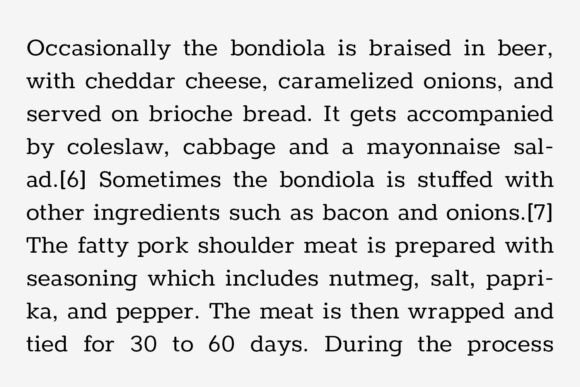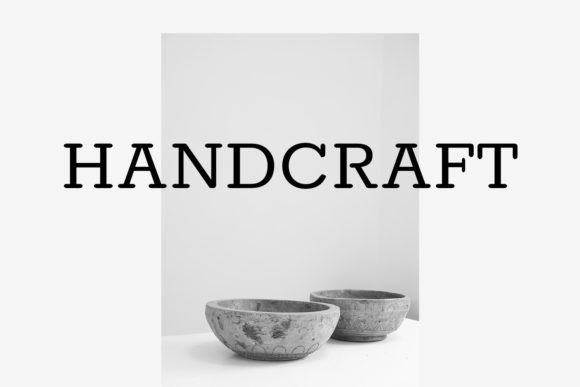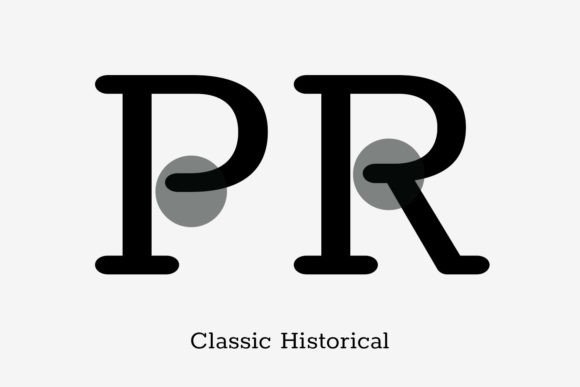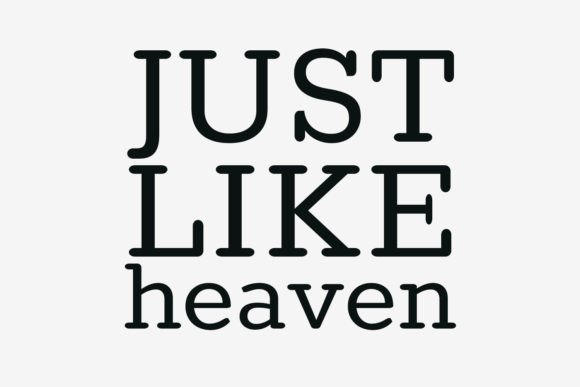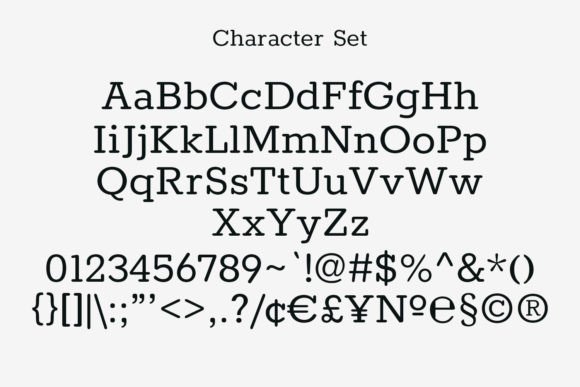
Introduction to Nudes Slab Serif Font Font
Have you ever found yourself staring at a blank page, trying to come up with the perfect design for a project? The words just won’t come together, and you’re left with a sea of possibilities and no clear direction. That’s where the Nudes Slab Serif Font Font comes in – a high-quality design resource that’s sure to spark your creativity and help you bring your ideas to life.
This light slab serif font is a game-changer for designers, offering a unique combination of fun, ligatures, and alternates that will add an extra layer of depth to your work. With support for over 100 languages, you can create stunning designs that transcend borders and cultures. Whether you’re working on a logo, social media campaign, or book title, the Nudes Slab Serif Font Font is the perfect companion for your creative project.
Key Features of Nudes Slab Serif Font Font
- High-quality design resource for creative projects, ideal for use in various mediums including digital and print.
- Unique Slab Serif font style with a modern twist, perfect for adding a touch of sophistication to your design.
- Includes a transparent background, making it easy to overlay on images or use as a standalone design element.
- Designed to be highly legible, with clear and crisp letterforms that make it perfect for use in body text and headlines.
Honest Review: Nudes Slab Serif Font Font
As a designer, I’m always on the lookout for high-quality fonts to enhance my creative projects. Recently, I came across the Nudes Slab Serif Font Font, and I’m excited to share my honest review with you.
- ✨ High-quality design: The Nudes Slab Serif Font Font is well-crafted, with clean lines and a professional look.
- ✨ Versatile: The font is suitable for a variety of design projects, from logos to brochures.
- ⚠️ Limited font sizes: The font may not be suitable for very large or very small text sizes.
- ⚠️ No bold or italic options: The font only comes in regular weight, which may limit its use in certain design situations.
Overall, I’m impressed with the Nudes Slab Serif Font Font. While it may have some limitations, its high-quality design and free download make it a great resource for designers. With a transparent background, it’s perfect for using in creative projects that require a clean and professional look.
The Nudes Slab Serif Font Font is a high-quality design resource perfect for creative projects. It offers a unique and modern look that can elevate any design.
To get the most out of the Nudes Slab Serif Font Font, use it in conjunction with other design elements, such as images and graphics, to create a cohesive look. Experiment with different font sizes, colors, and combinations to achieve the desired effect.
The Nudes Slab Serif Font Font is perfect for:
- Typography-based designs